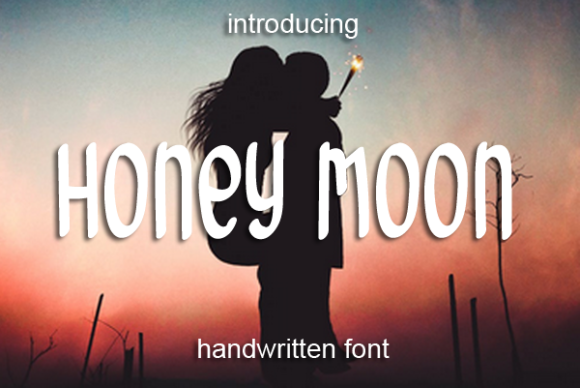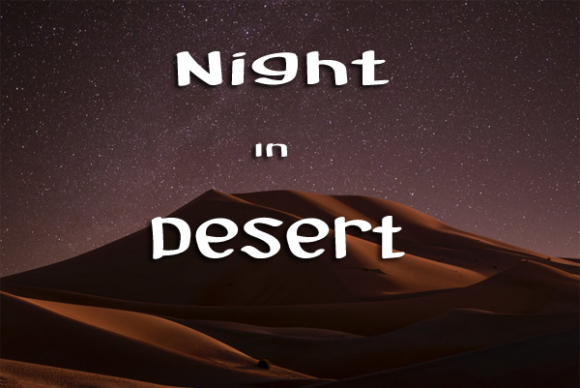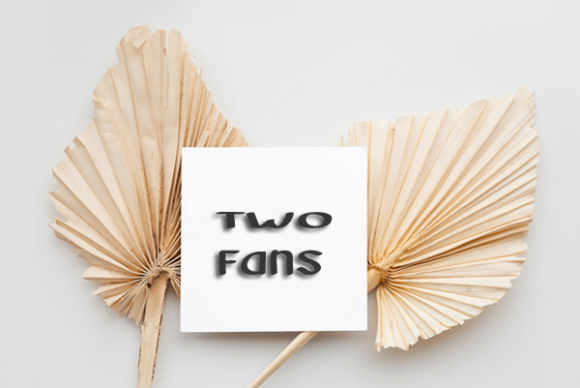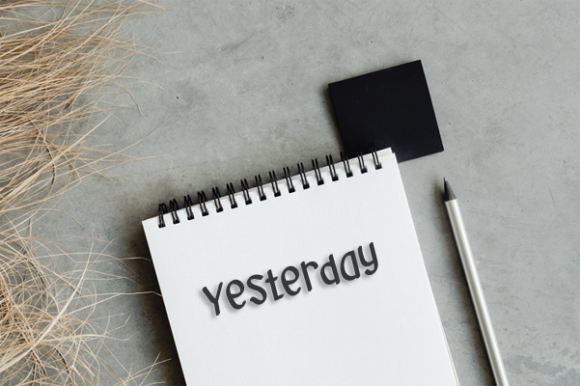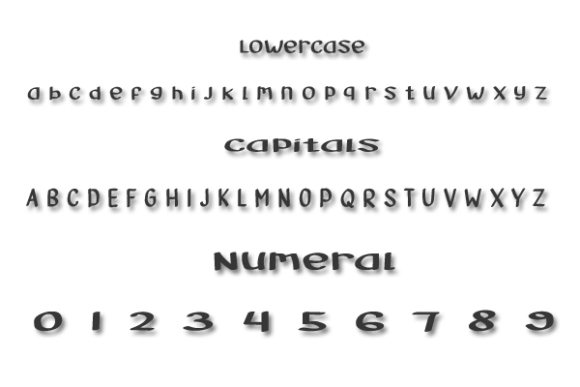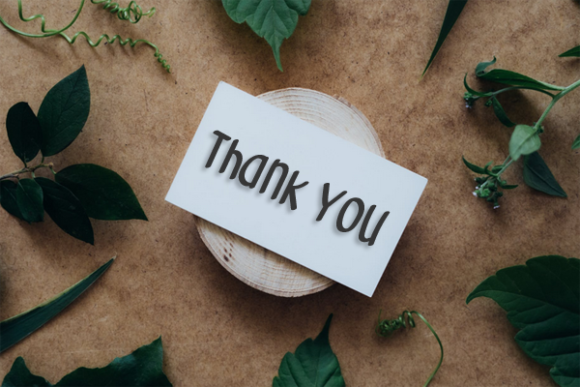
Honey Moon Font
About Honey Moon Font
Honey Moon is a clean and simple handwritten font. Simple but with a strong visual effect, this font will instantly make your creation more appealing than any others.